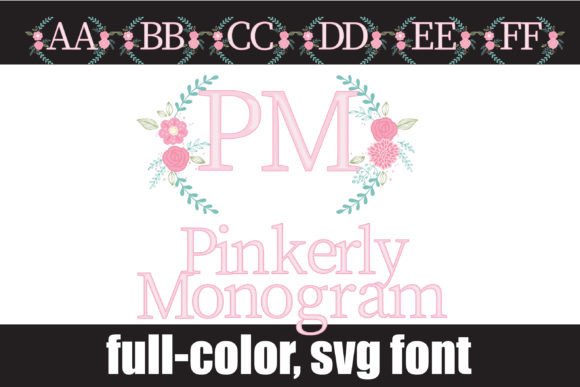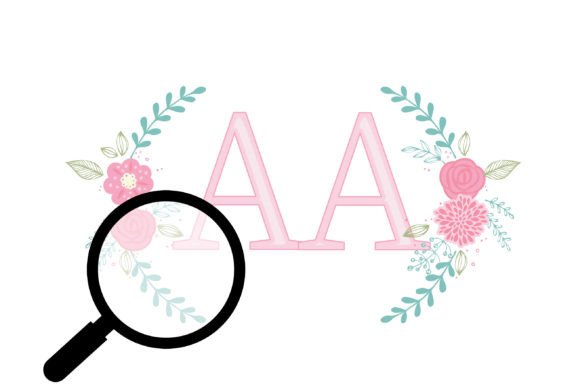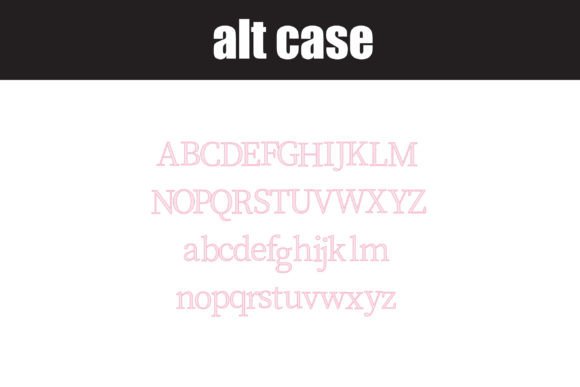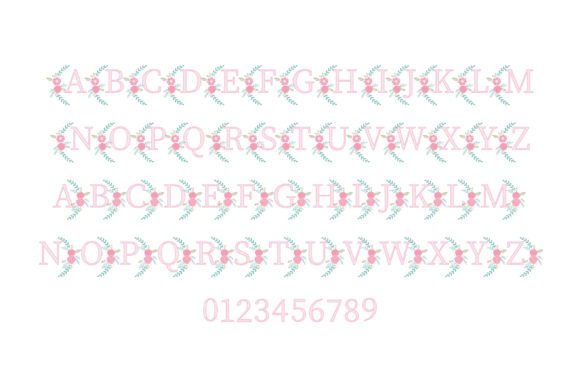
Pinkerly Monogram Font
About the Pinkerly Monogram Font
Let us introduce you to Pinkerly Monogram Font, where timeless design meets modern craftsmanship. This full-color font features beautiful florals on a flourished, serif font. This font is meant to be a monogram font. Type the uppercase for the flourish to the left. Type the lowercase for the flourish to the right. Type “Pm) to create our example. There is an alt case w/ additional lettering you can access through your system or Silhouette’s glyph map.